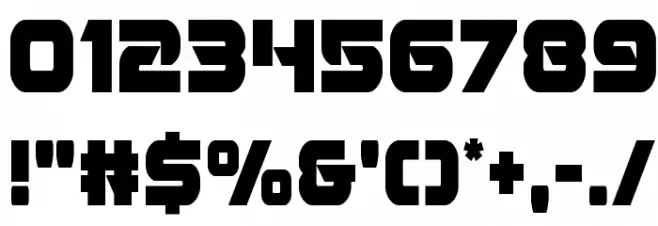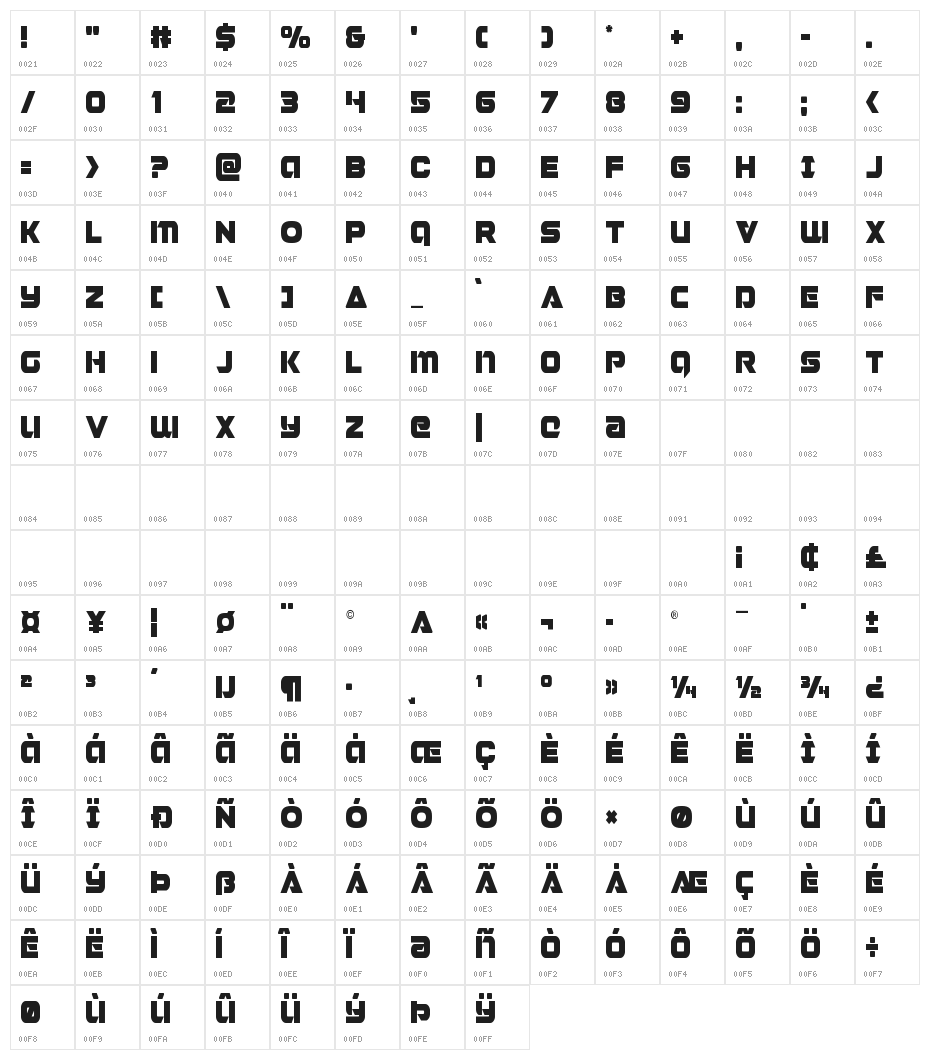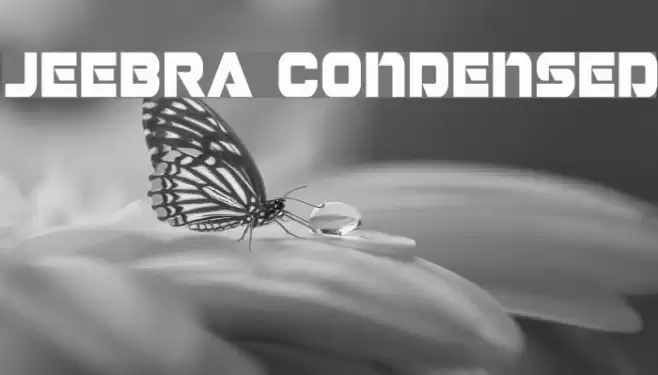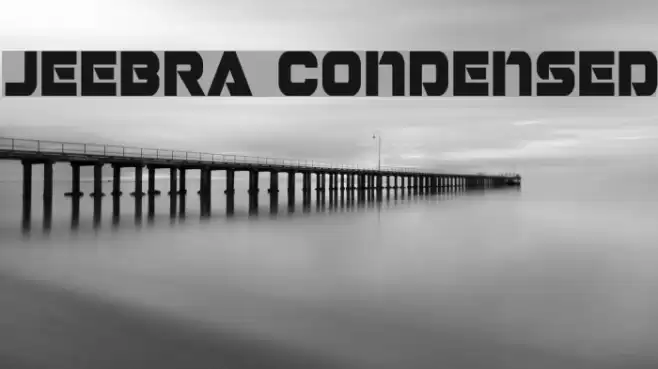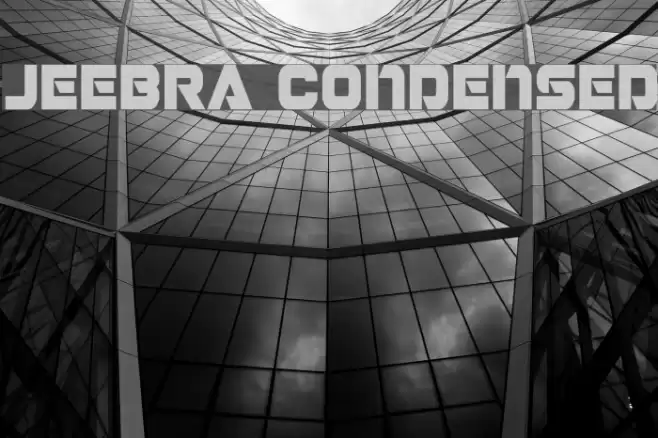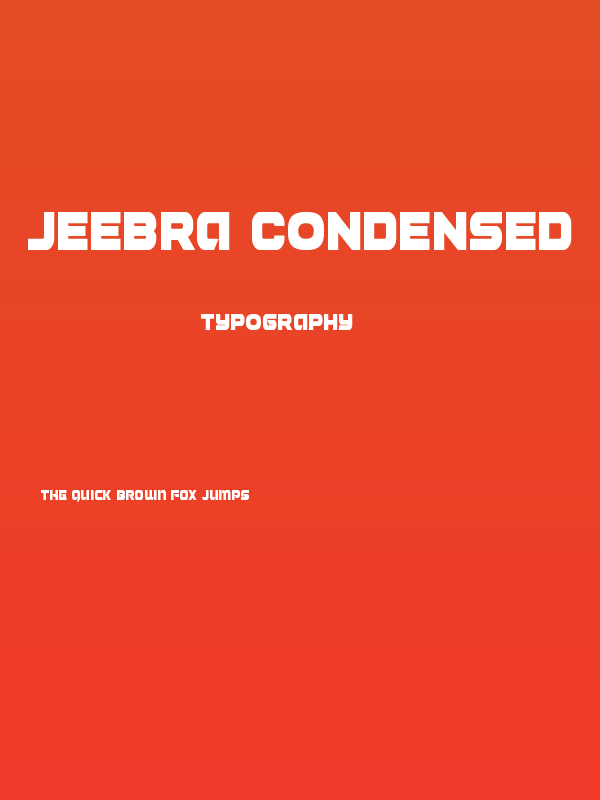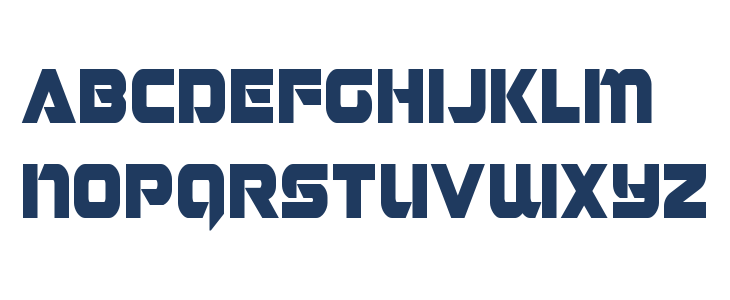
Jeebra Condensed Font
Jeebra Condensed Description
This font features a bold and geometric design with a distinct condensed style. The characters are constructed with sharp angles and straight lines, creating a futuristic and industrial appearance. The uppercase and lowercase letters maintain a uniform height, enhancing the compact and cohesive look. The numerals and special characters follow the same design principles, ensuring consistency across all glyphs. This font's strong presence and unique style make it suitable for attention-grabbing applications.
| Proposed Projects | Ideal for branding, posters, headlines, and any project requiring a modern and impactful typeface. |